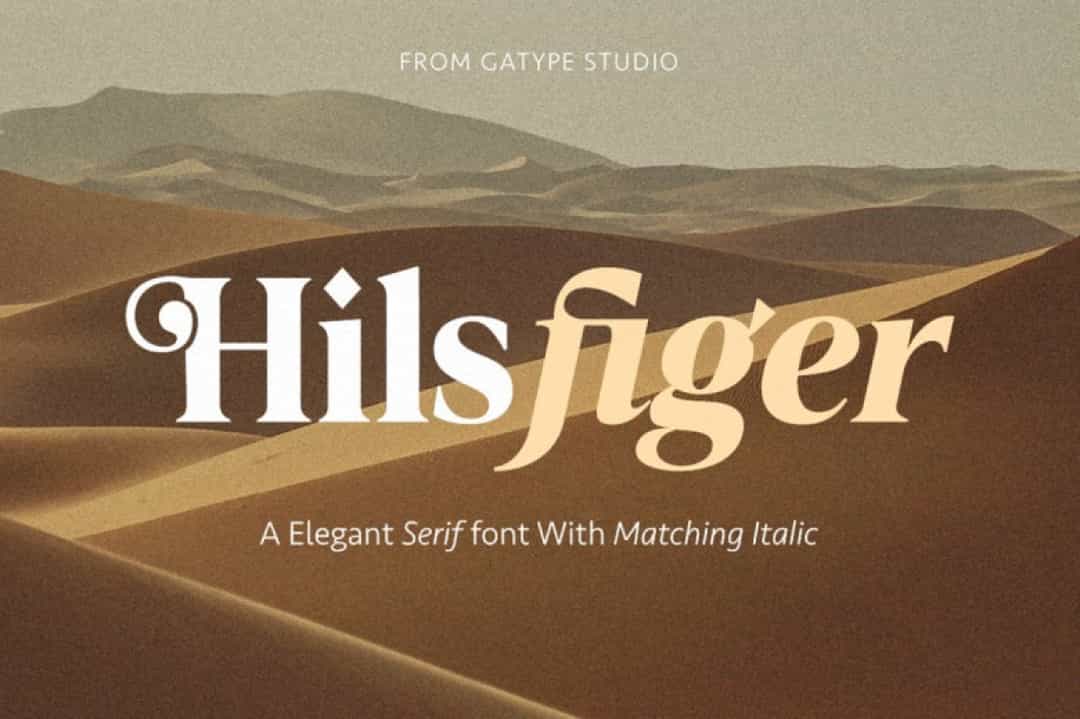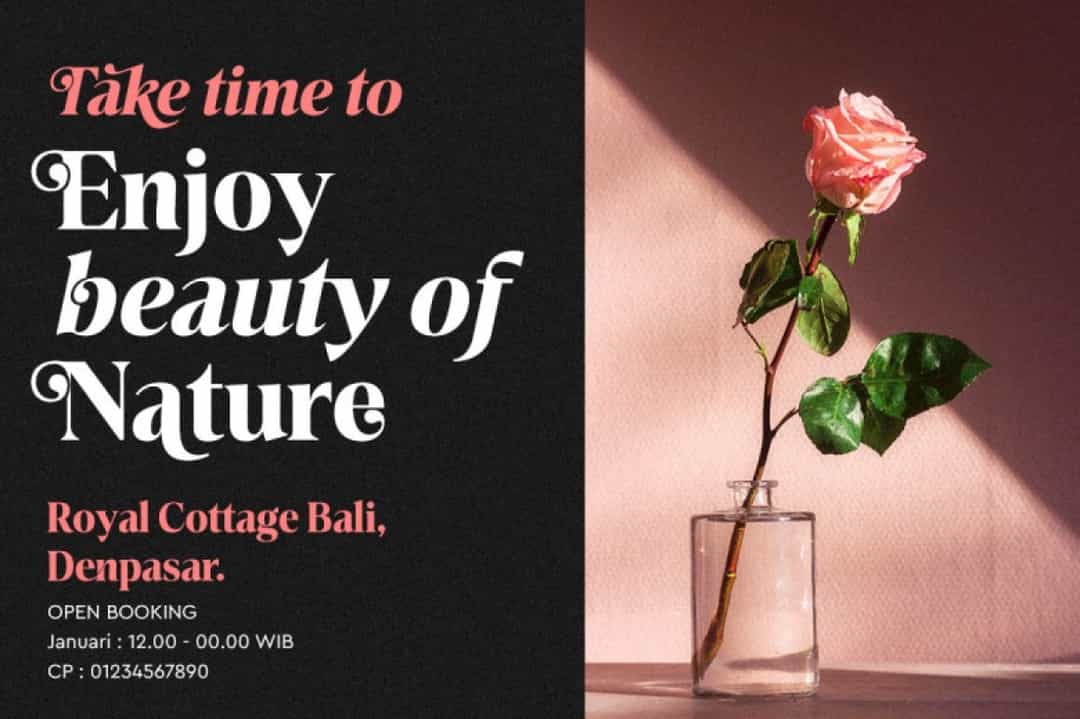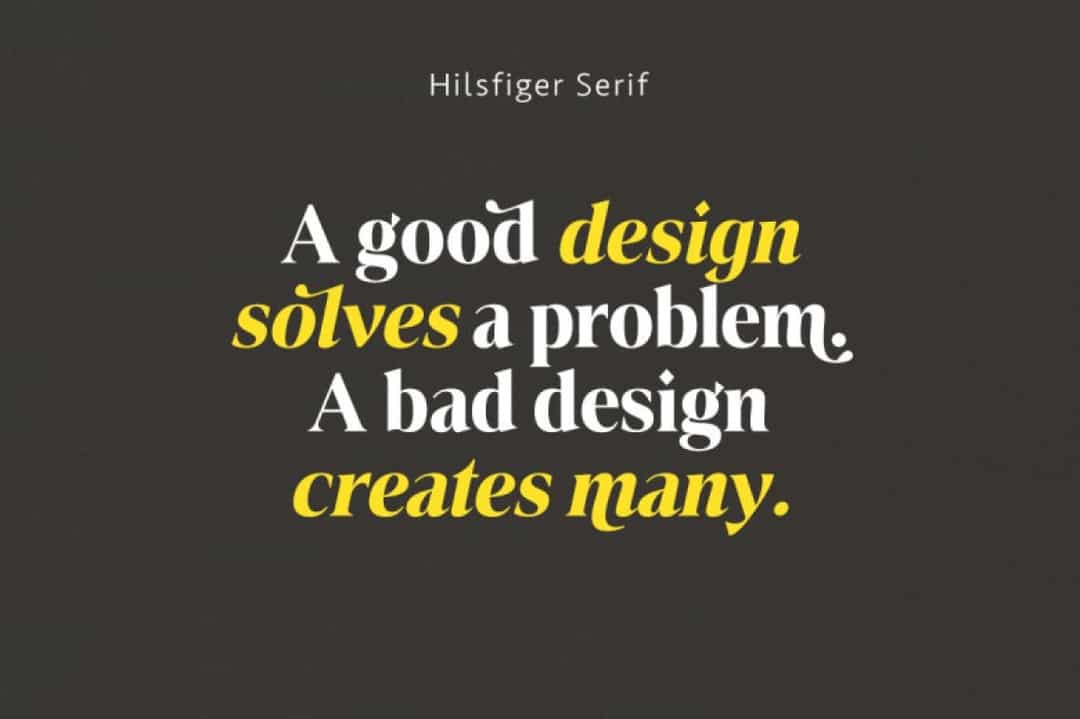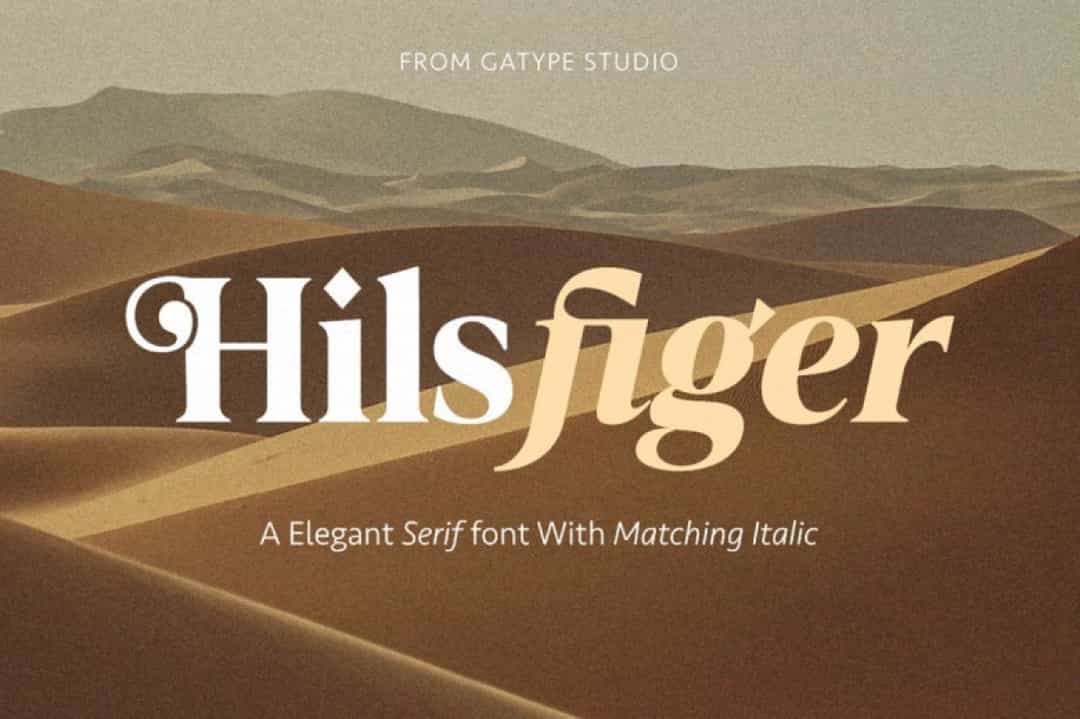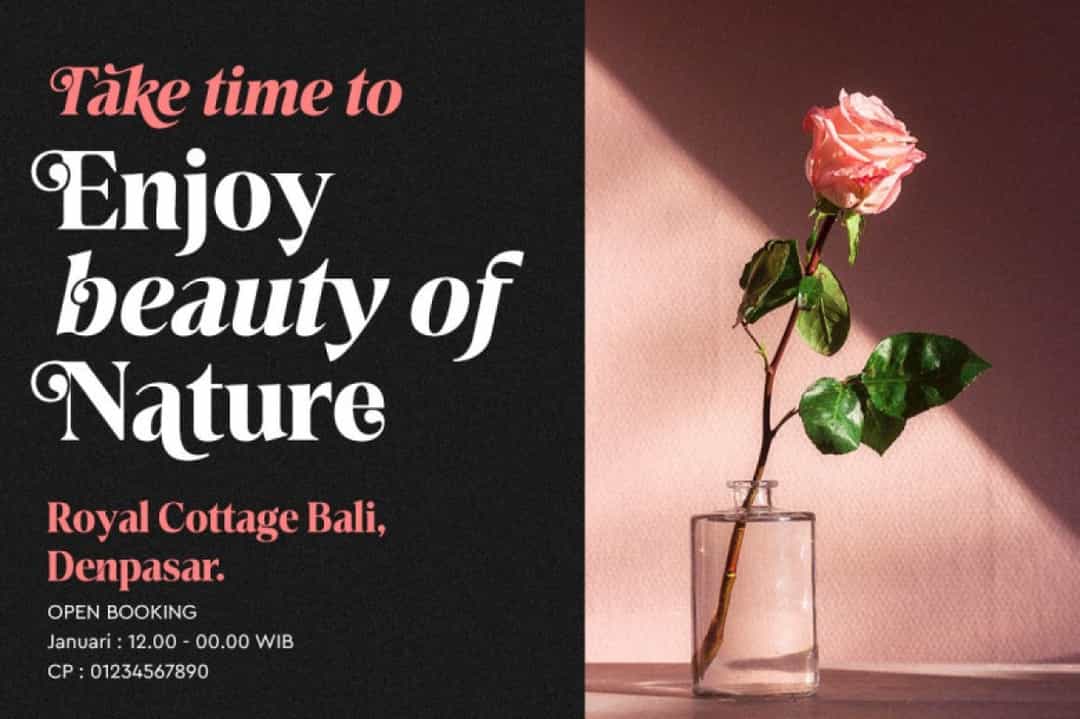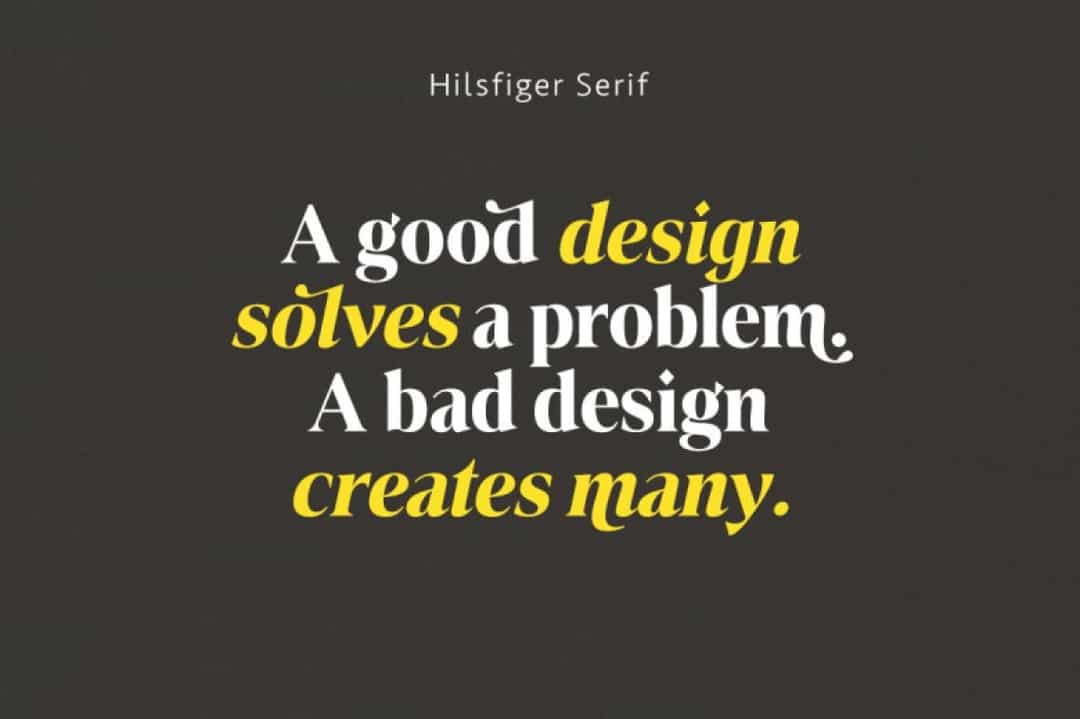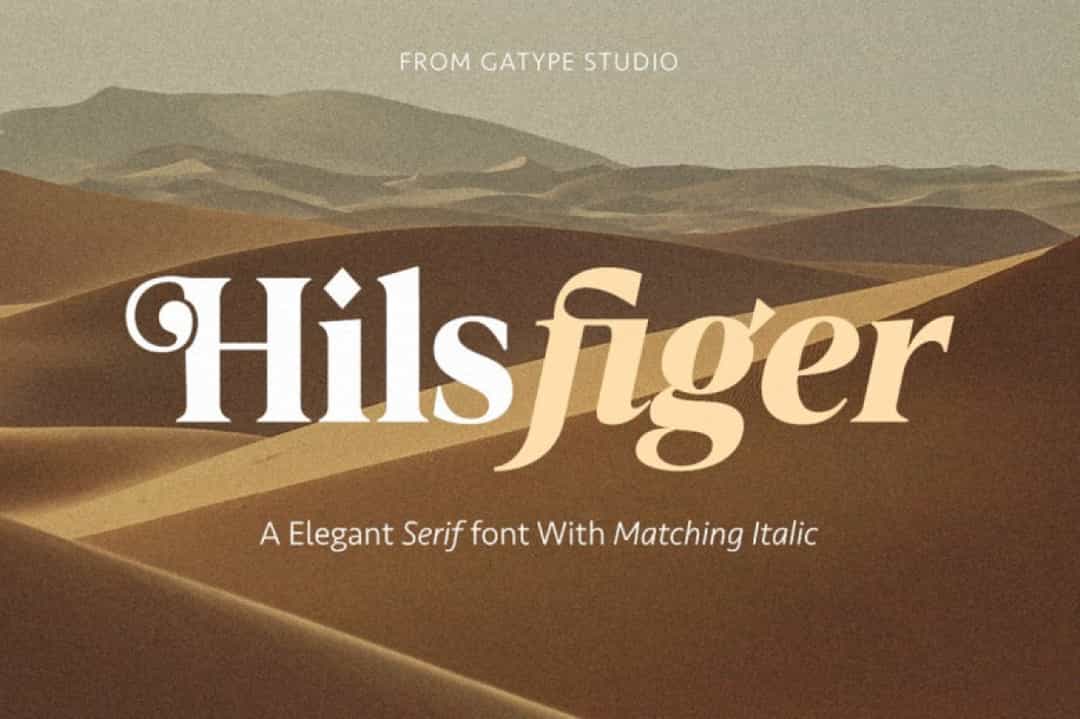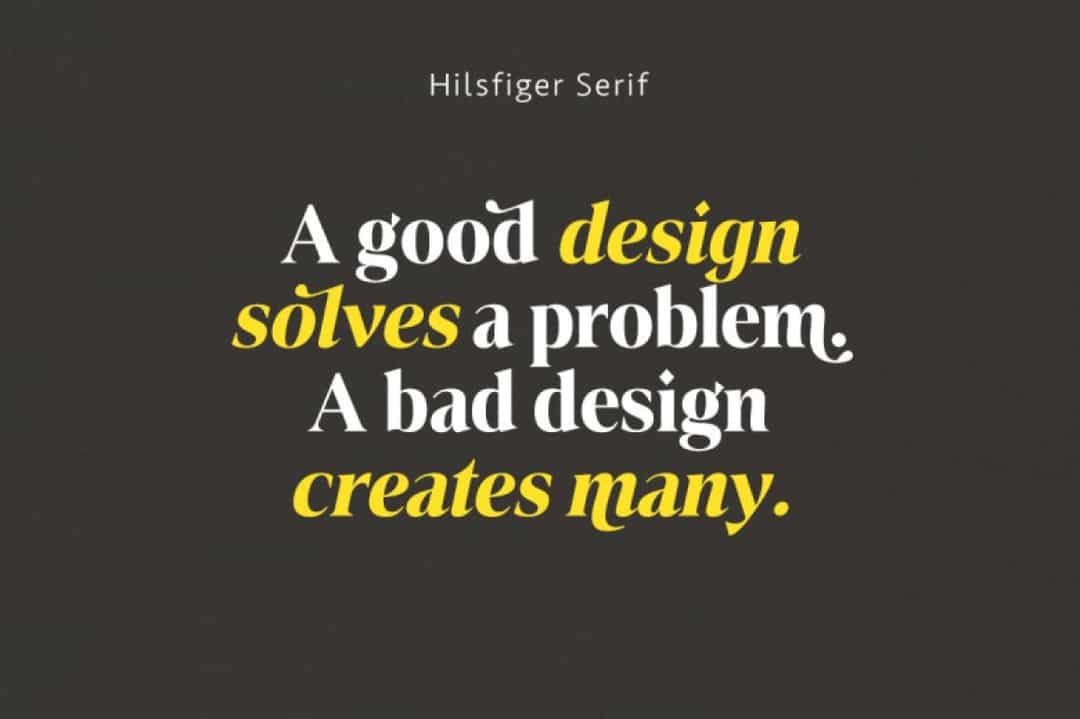
Hilsfiger is a flexible serif font designed with fun in mind that can add spice to any style imaginable. Available as both Regular and Italic fonts in OpenType format, you can take advantage of numbers, ligatures, alternative fonts punctuation as well as supporting different languages – making Hilsfiger an excellent way to add personality and flair. Also suitable for small to large sizes!